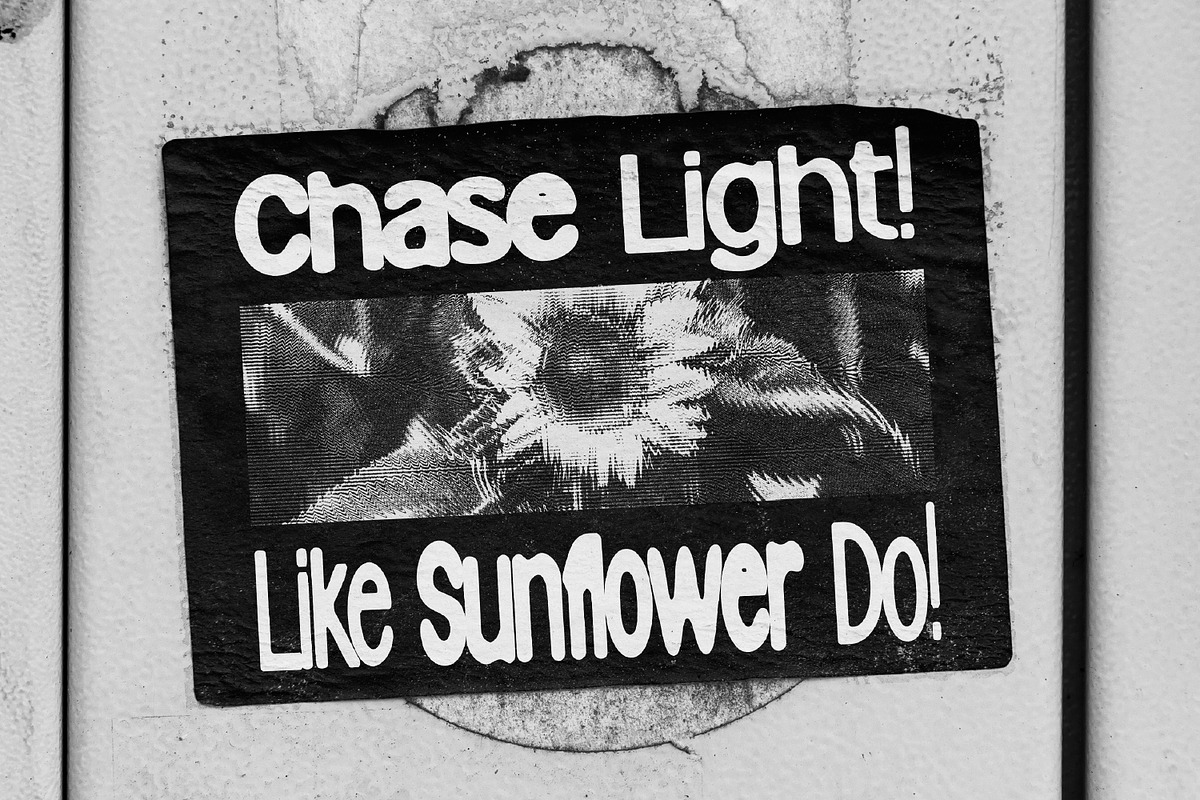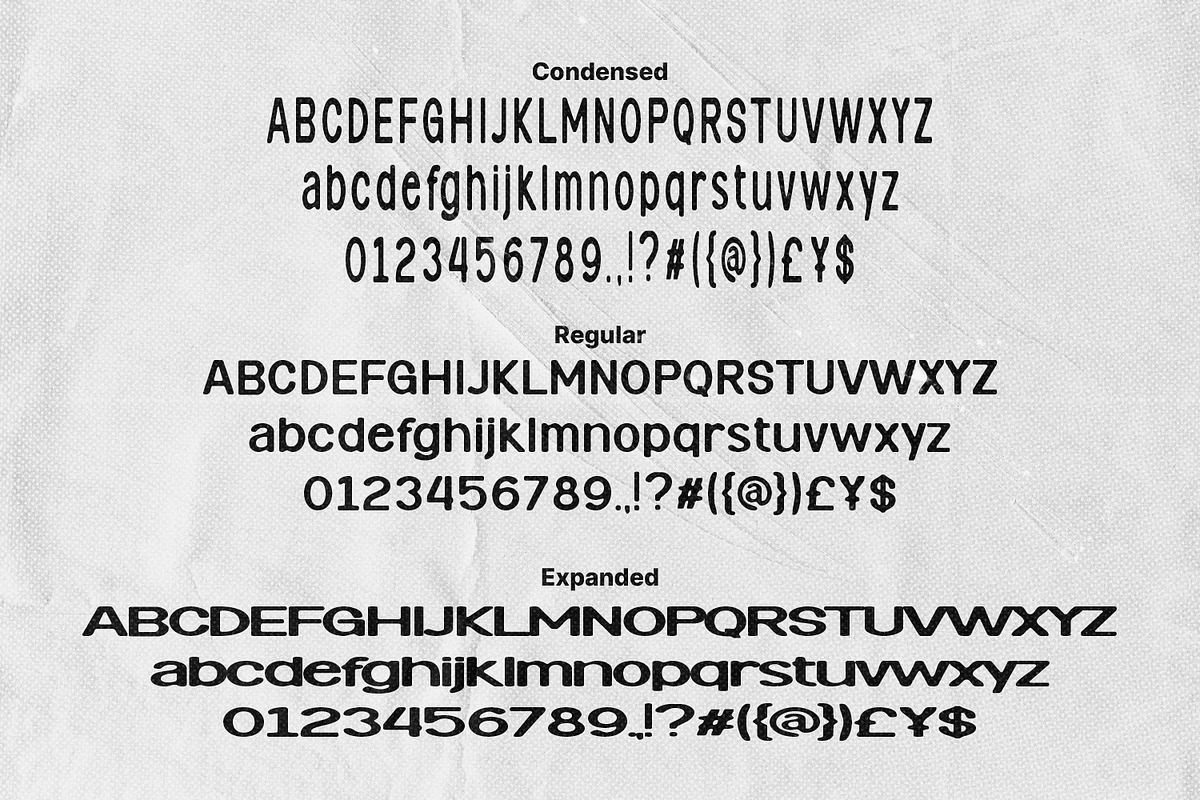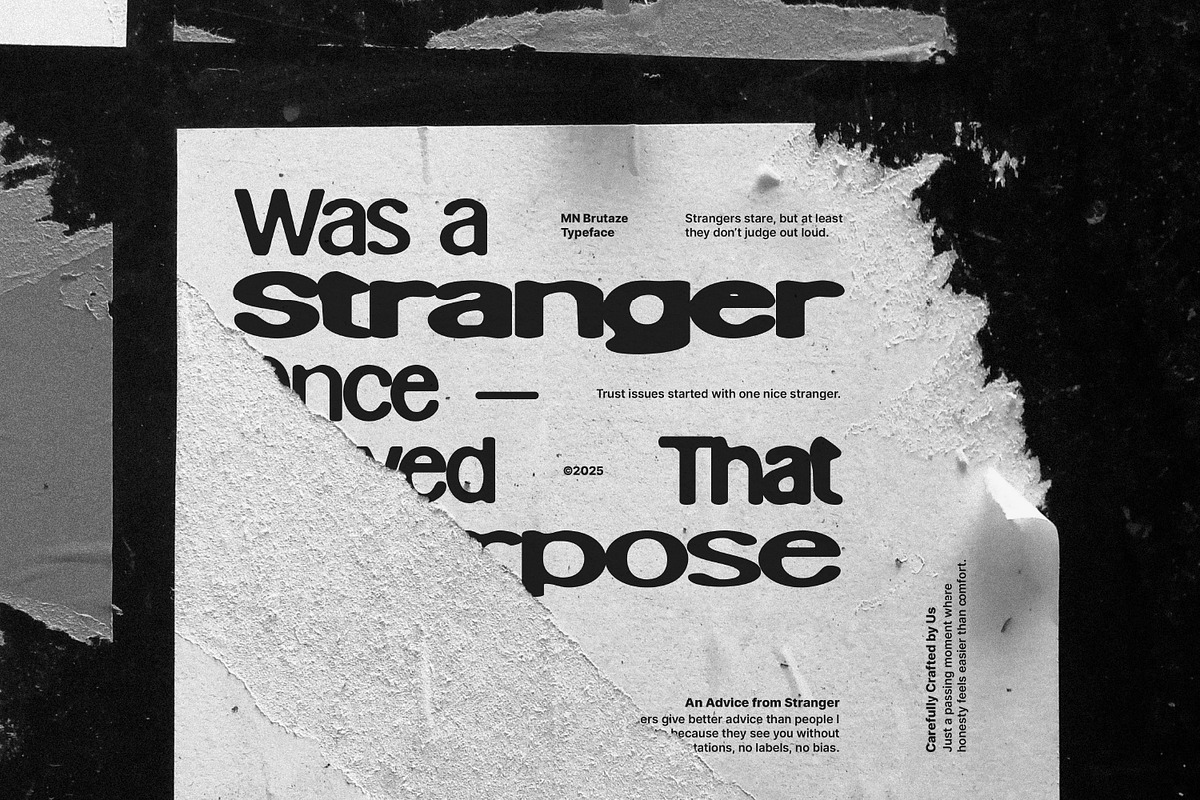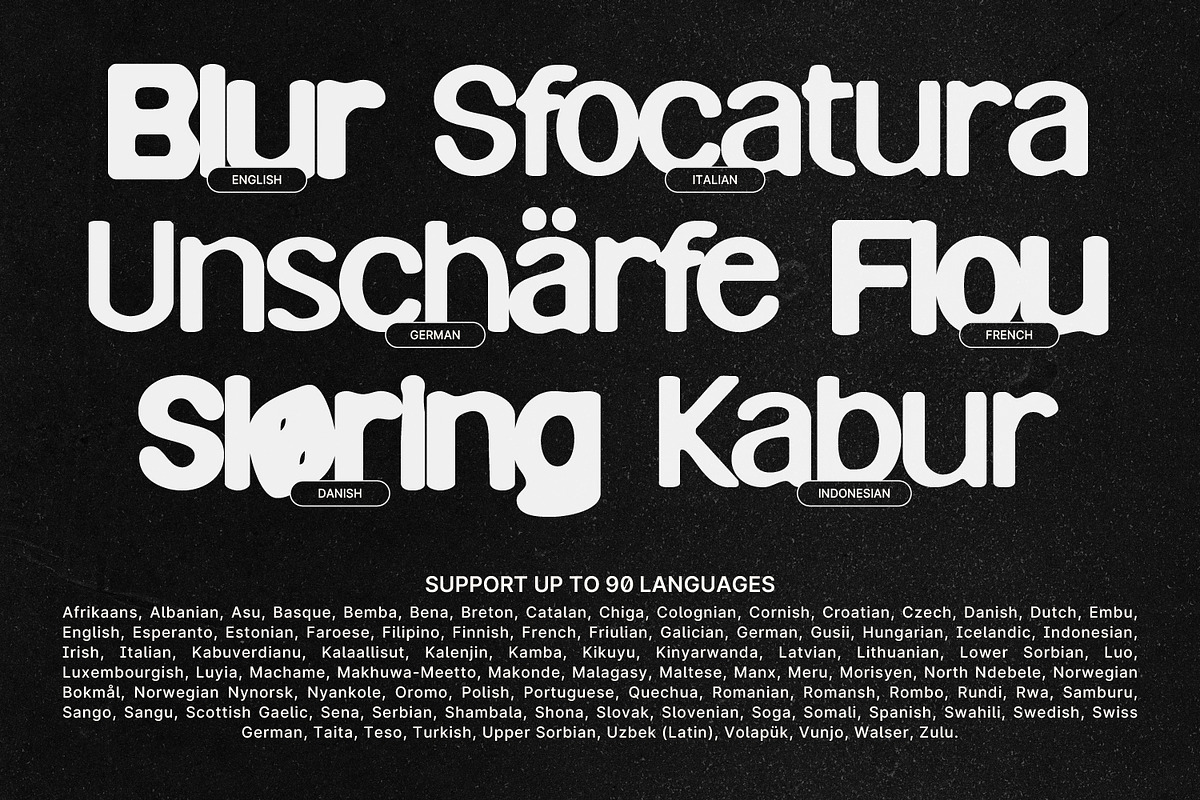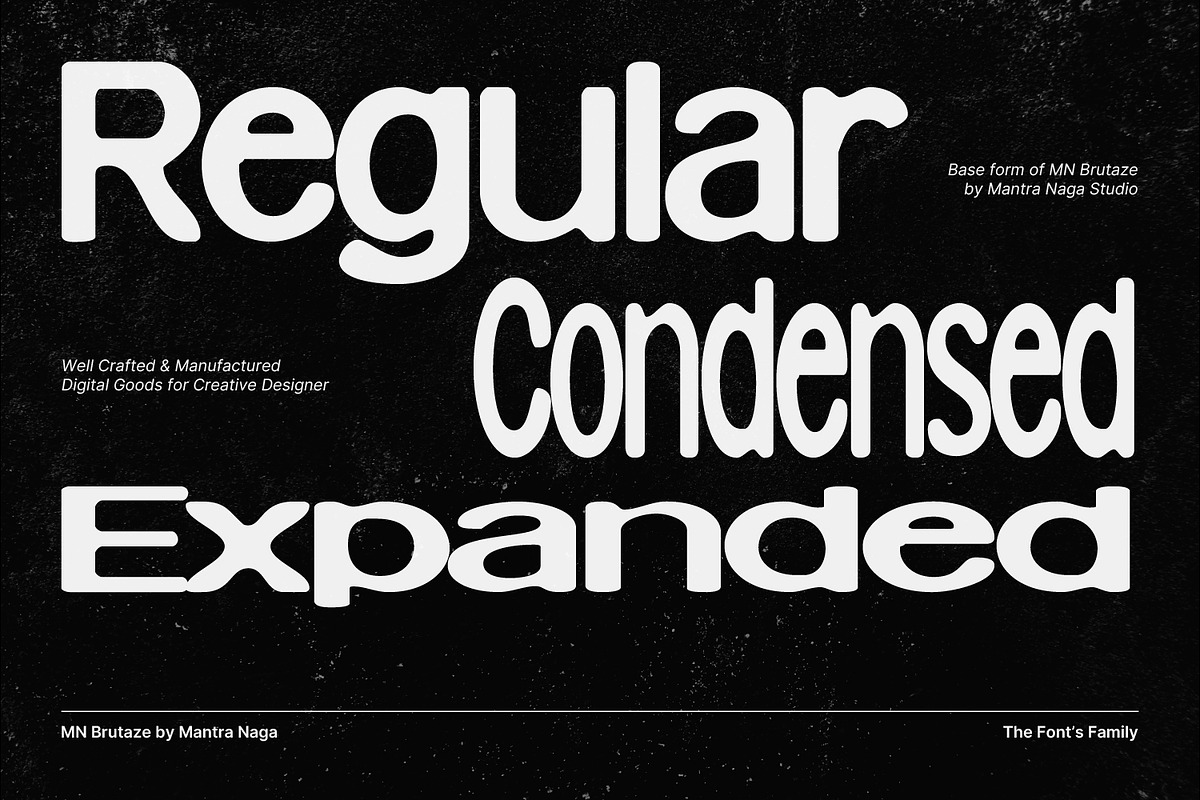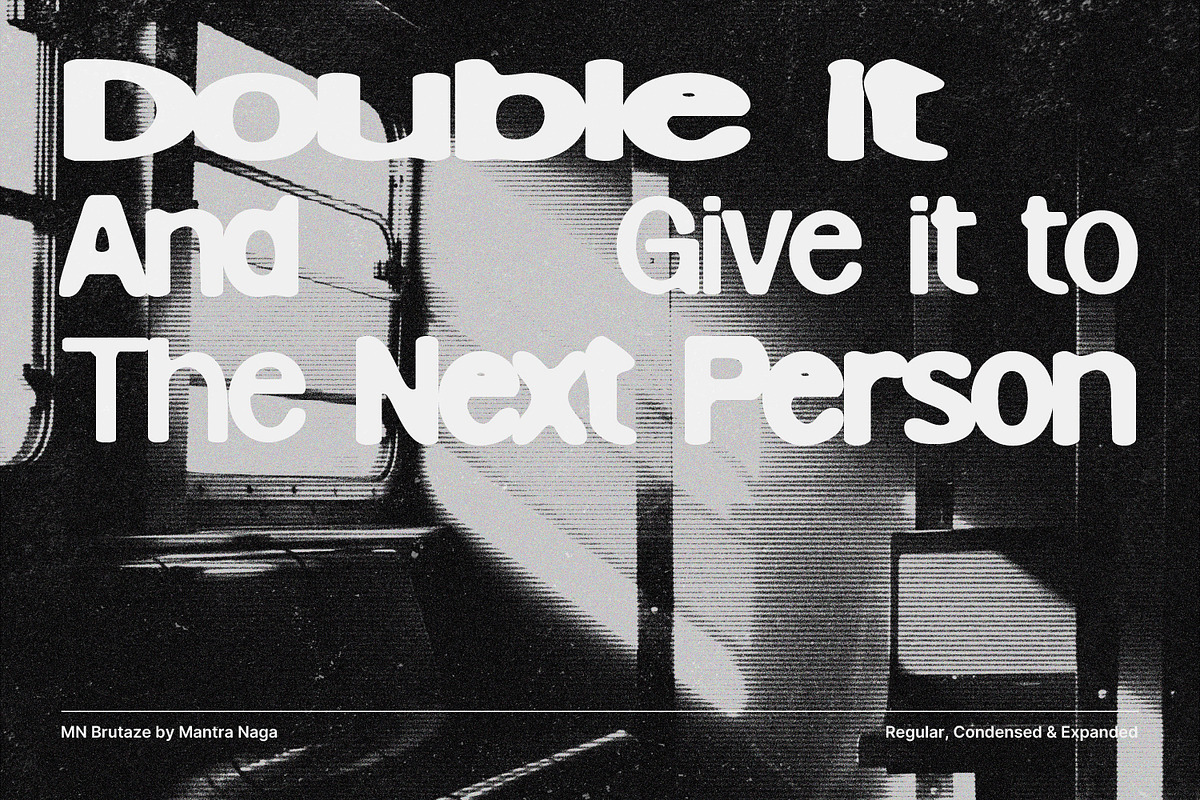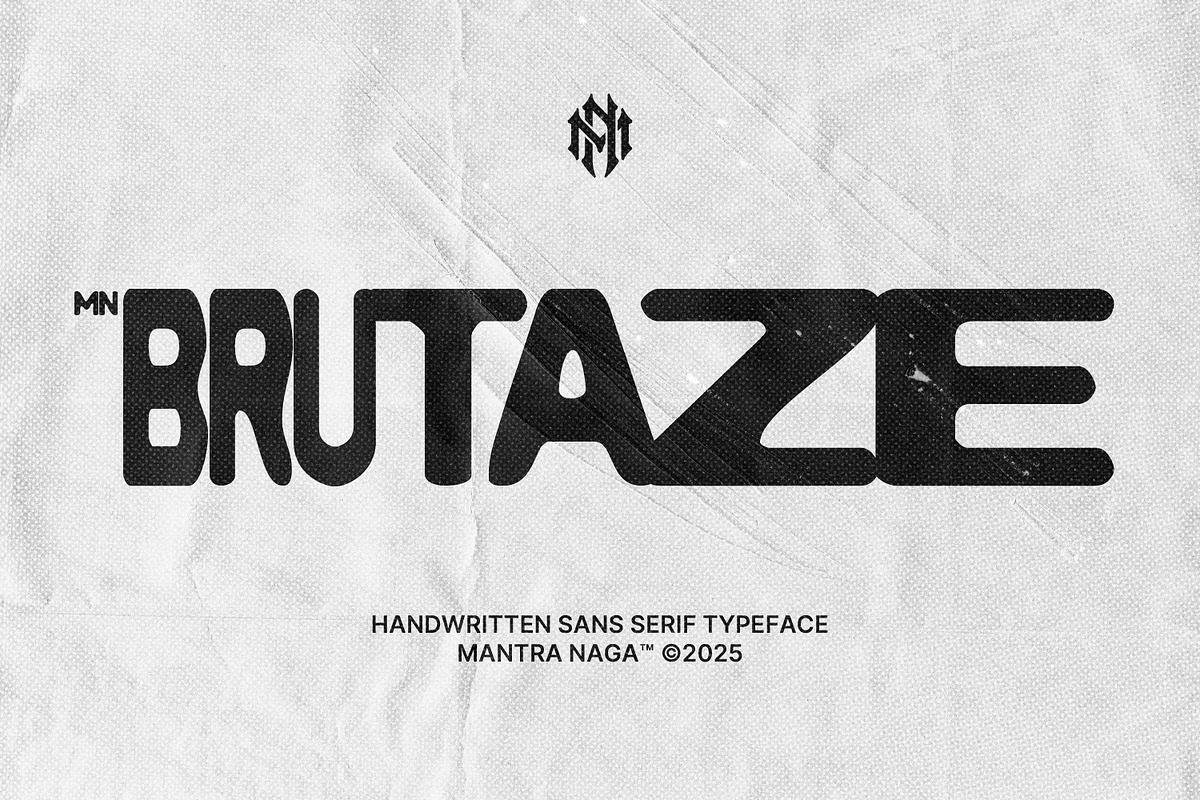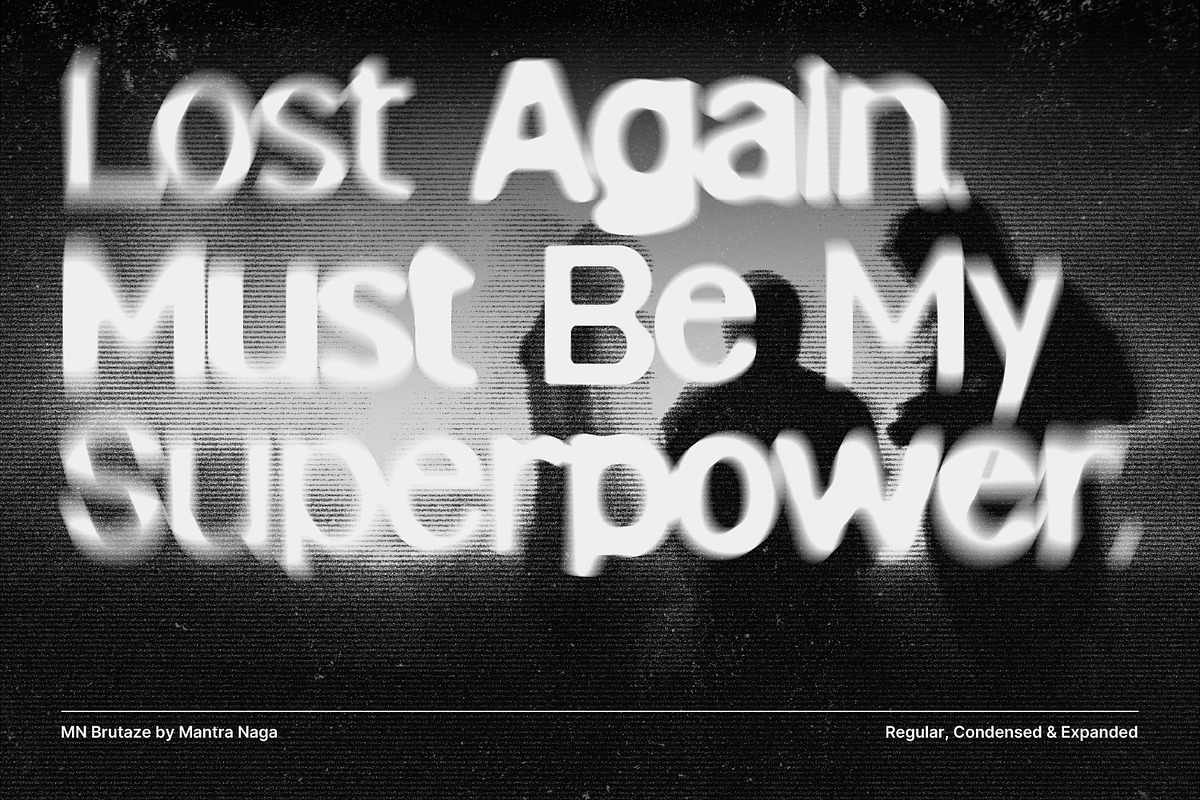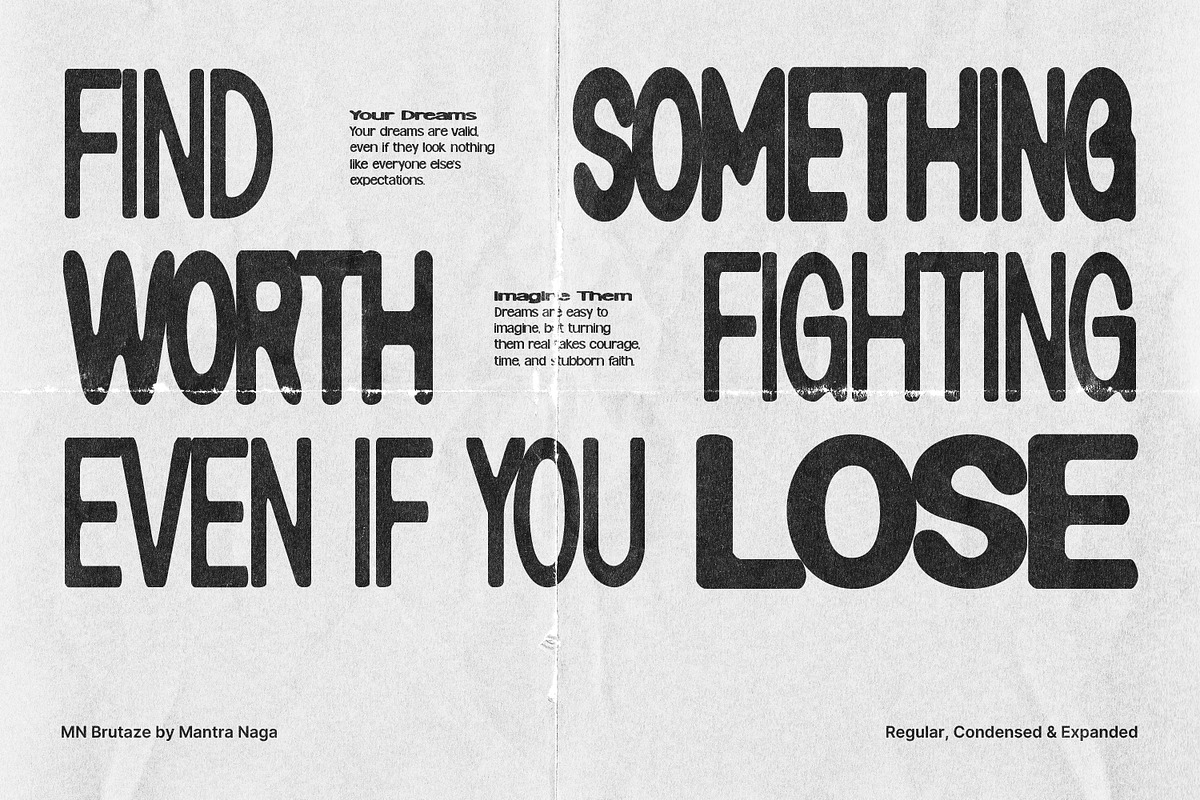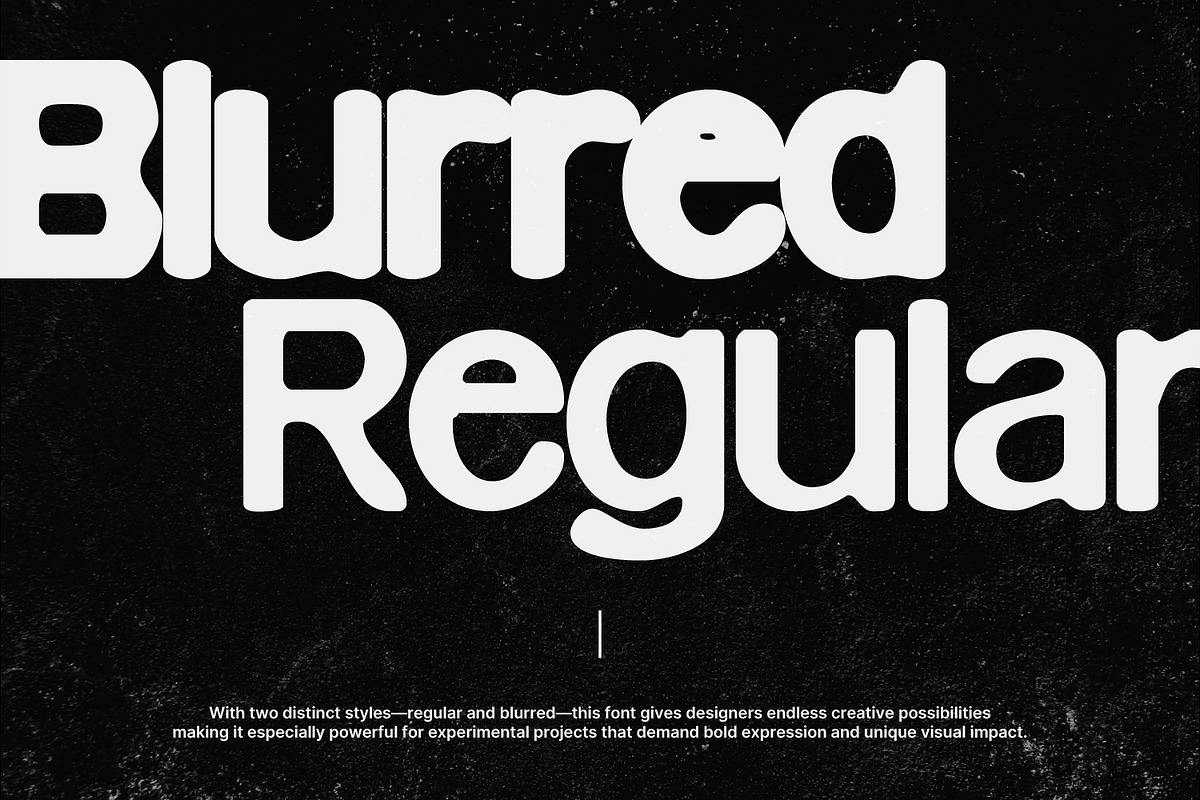
MN Brutaze - Handwritting Sans Serif
MN Brutaze is a handwritten sans serif typeface with messy on purpose. It’s born from the collision between brutalism and hand-drawn imperfection, celebrating the rough edges that give design its pulse.
It comes in two styles: Regular, bold and organic, like fresh ink laid down with confidence. Blurred, a smudged ink-bleed version that keeps the handwritten spirit alive while adding a touch of motion and texture.
Each style offers three width variations: Condensed, Normal, and Expanded. This makes Brutaze versatile for expressive headlines, experimental posters, and bold visual statements that need to stand out naturally.
Brutaze doesn’t chase perfection. It’s raw, instinctive, and human, built for designers who appreciate the beauty of imperfection.